Integrating cyber futuristic fonts is a no-brainer for designers when designing websites, apps, games, or other visual designs that require futurism concepts. These fonts speak the required language of technology through their style and attributes. Hence, making it easier to represent the brand’s or product’s vision and value while reaching the targeted audience.
This article unfolds some valuable font inspirations to facilitate you in developing stunning futurism designs for those specific media. If you’re searching for inspiration, read our article till the end.
20+ Cyber and Futuristic Fonts for Innovative Design Aesthetics
Our following font collection comes with attributes that depict innovation, technology, and modernity. They will surely fuse websites, apps, or gaming UI designs with the authenticity that futuristic design requires.
1. Coder
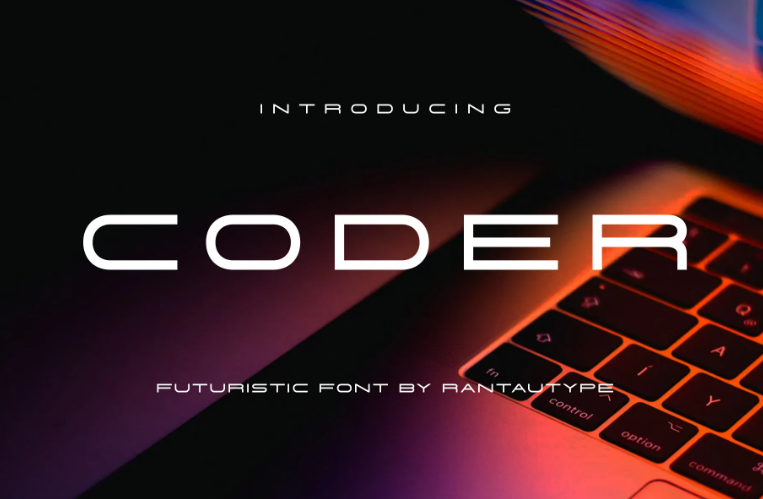
Coder is a clean futuristic font with quite dense and rounded shapes. Its minimalist lines with no contrast deliver great legibility. Combine the standard style with its alternates that instill stencil font style to create an elegant text combination for gaming UI.
2. Cerdion
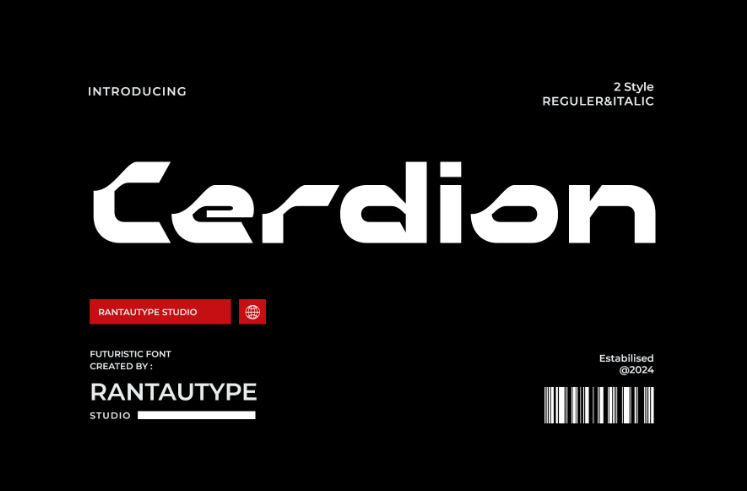
Cerdion’s general letterform has angular shapes with sharp edgy representing futurism at its best. This font’s alternate style has unique shapes in its letters’ anatomy. It will tone up your futuristic designs with chic flair.
3. Spaceon
Spaceon has a strong presence with its stencil mode and letters that were formed by curved geometrical lines. Perfect modern font to spice up your gaming UI or website designs.
4. Magios
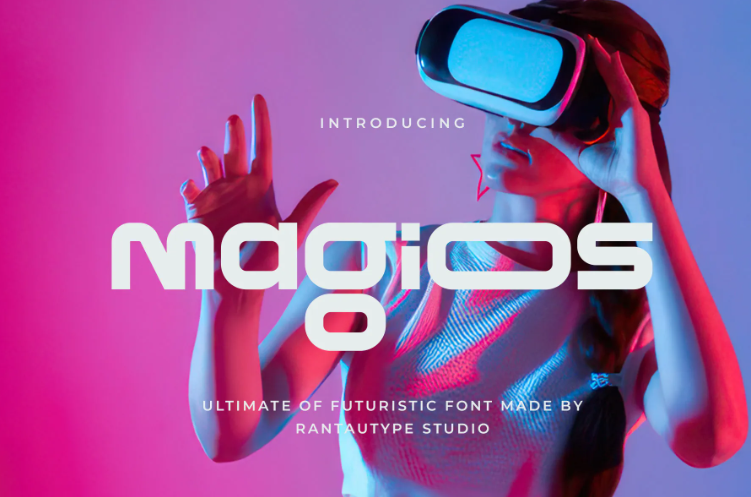
Inspired by the cube forms, Rantau created Magios as one of the signature cyber futuristic fonts. The letters’ edges tend to be rounded which makes this font look overall bold.
5. Outerion
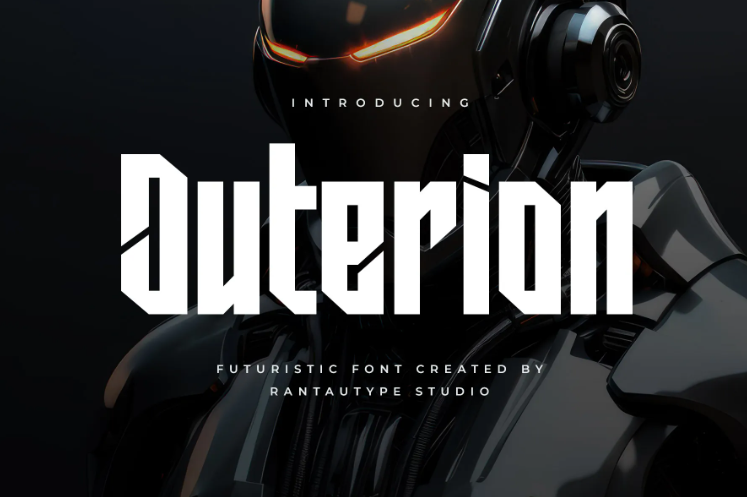
Outerion has a condensed font style with a dash of sporty nuance. The letters are uniform with slight cuts in their strokes, bringing an edgy look. It’s a fantastic font choice for games, tech, or sports posters.
6. Fassero
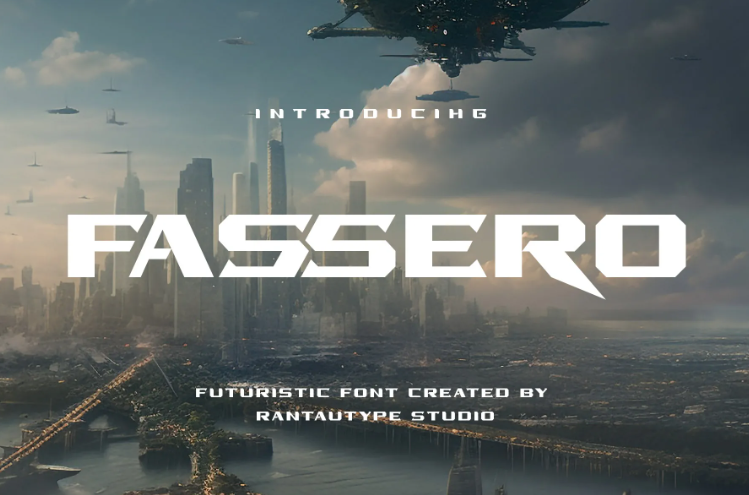
If the above-mentioned were mostly from the sans-serif family, Fassero is a display font. The letters’ strokes have high contrast, meant to attract attention. While the letters’ terminals are sharps, it emphasizes a futuristic twist.
7. Saveyar
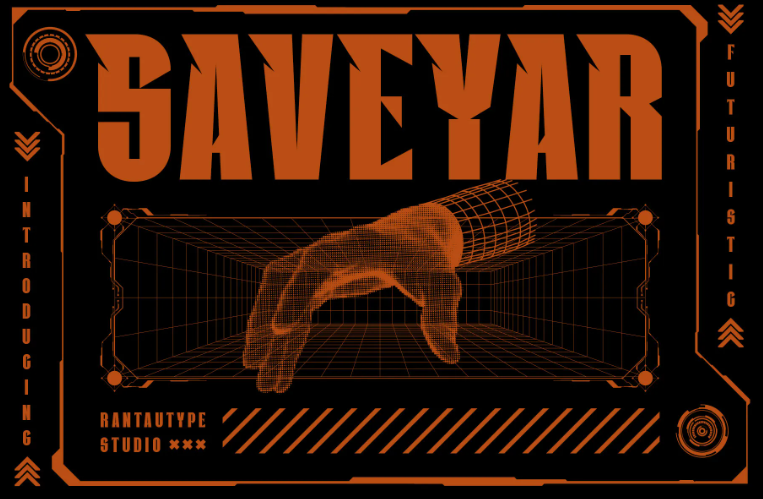
Saveyar has a robotic style that you can observe in various parts of its letters’ anatomy. Yet, its letterforms are loose rather than geometrical shapes, creating a stylish modern look.
8. Mooner
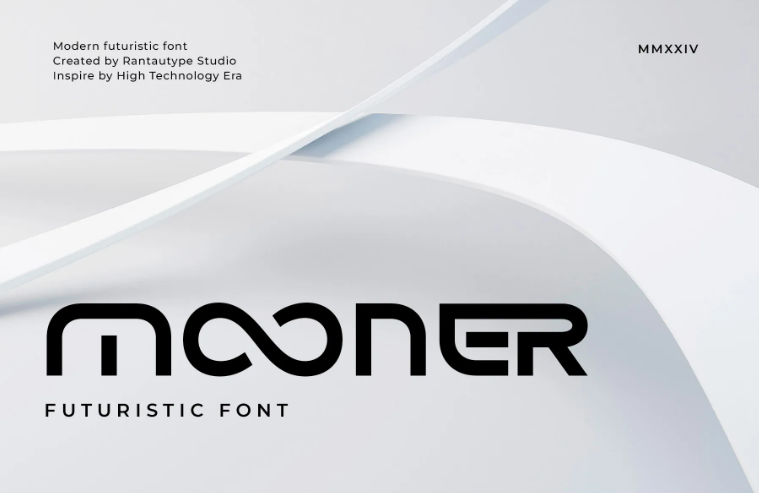
Mooner is one of the cyber futuristic fonts on the list with a stencil style. Both regular and rounded styles are chunkier with a soft and minimalist look, rather than angular sharpy style.
9. Resond
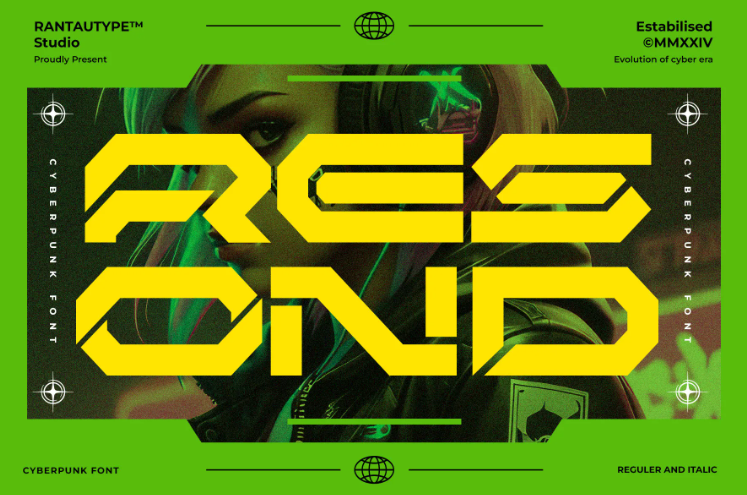
This one is a cyberpunk font, a top choice for futuristic design! Yet, its angular shapes, sharp edges, and blending with dense letterforms risk hard legibility. Thus, carefully adjust the kerning and leading.
10. Fortine
Fortine mimics the pixel font style that strongly relates to games and technology. This font surely gives a futuristic touch to your website or app designs, but also versatile for logo or product design.
11. Vorcas
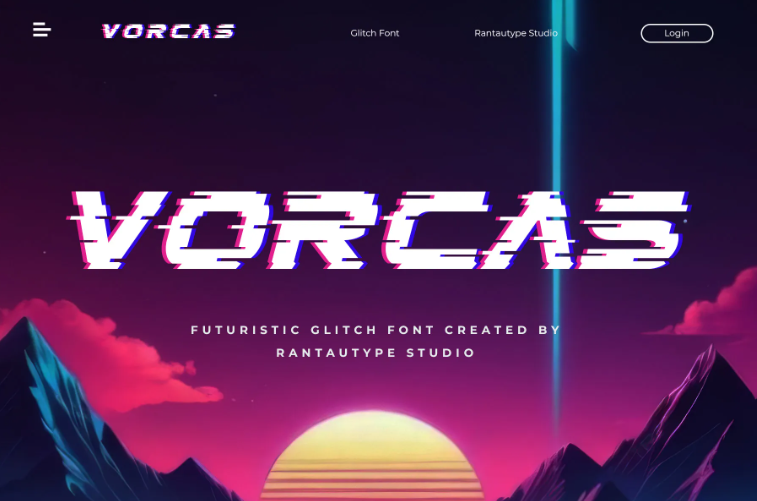
Approach futuristic design concept using an eccentric touch of Vorcas font. Its glitch letterforms create stylish and dynamic text. You surely should use this for websites or ads designed for an aggressive look.
12. Guntech
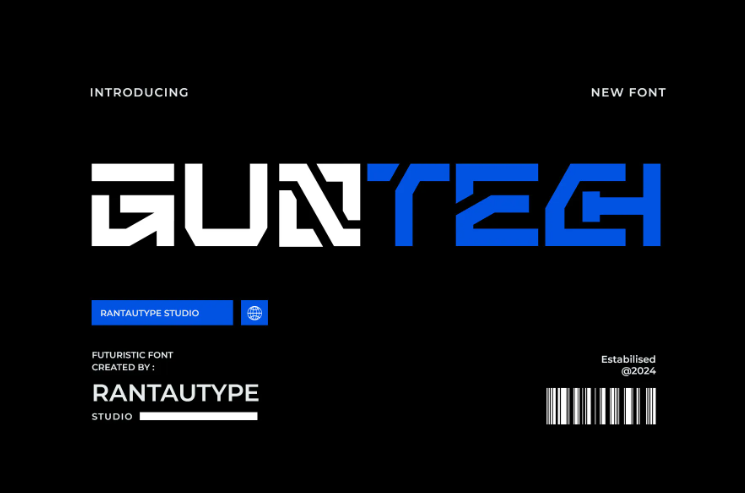
This typeface has sophisticated zigzag lines that structure the clean letters in a cool style. Therefore, consider integrating this font for games, websites, or even sci-fi magazine designs.
13. Galmond
Galmond offers you a refreshing look of futurism. Some of its characters were developed in clean geometric forms, but some have rounded strokes and edges. They generate a particularly more playful look of tech.
14. Gerdan
Gerdan is a solid font choice to highlight the dystopian realm. With its eccentric blocky yet spiky lines, it works best for large-size designs, including website, display, or signage.
15. Kuvas
Put Kuvas for your app designs since this font offers a rarely stylish design of cyber futuristic fonts. The grand dot put in its letters’ anatomy is a simple yet impactful additional element to the rectangular letterforms.
16. Adverd
Adverd comes with chunky and heavyweight letters which infuse a retro tone. This font particularly works great to build up an outer space image and feel.
17. Bravo Team
Bravo Team is basically a sports font. Yet, you can pair this font for gaming UI design with techno and sports concepts to create retro-futuristic concepts with its geometrical characters set.